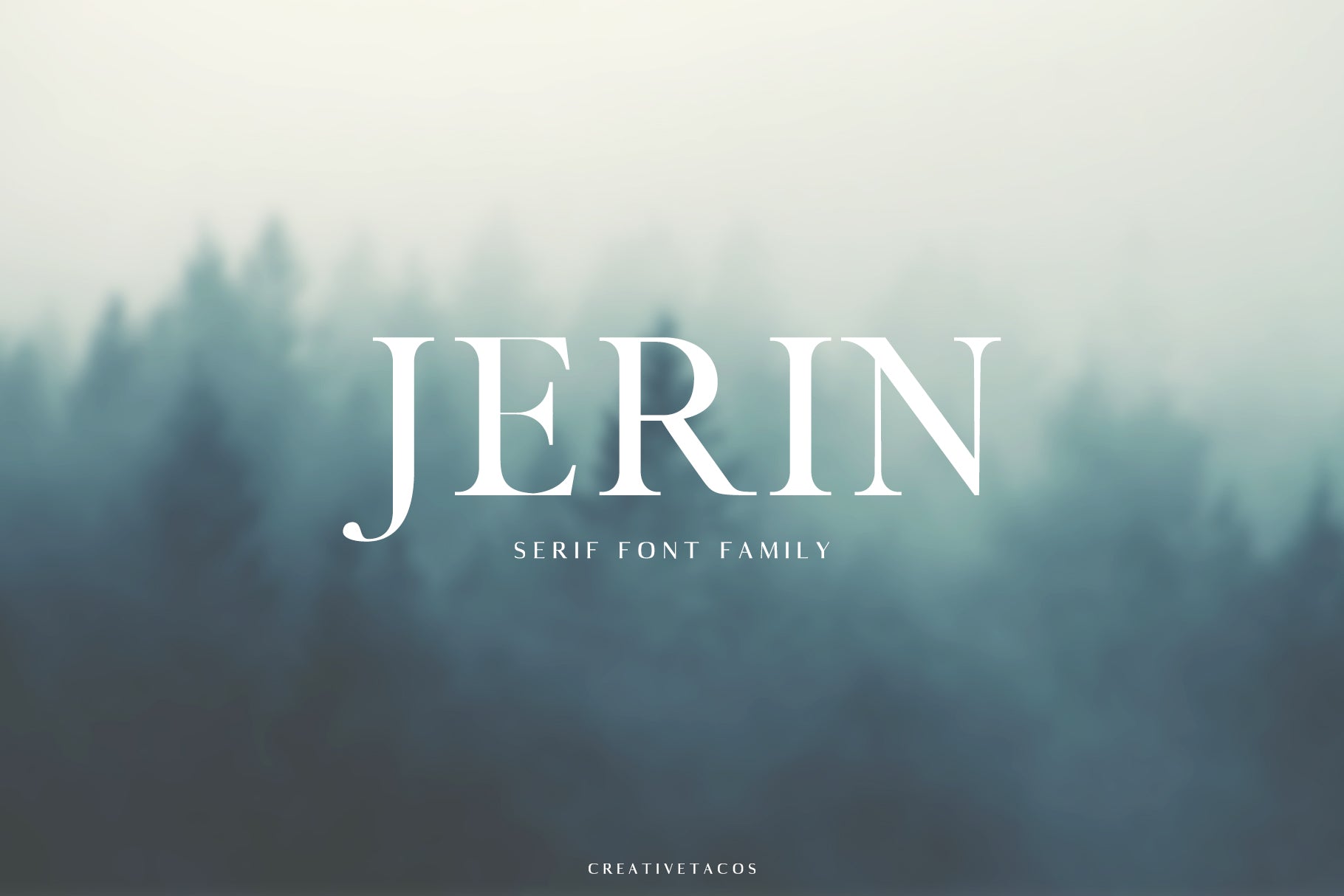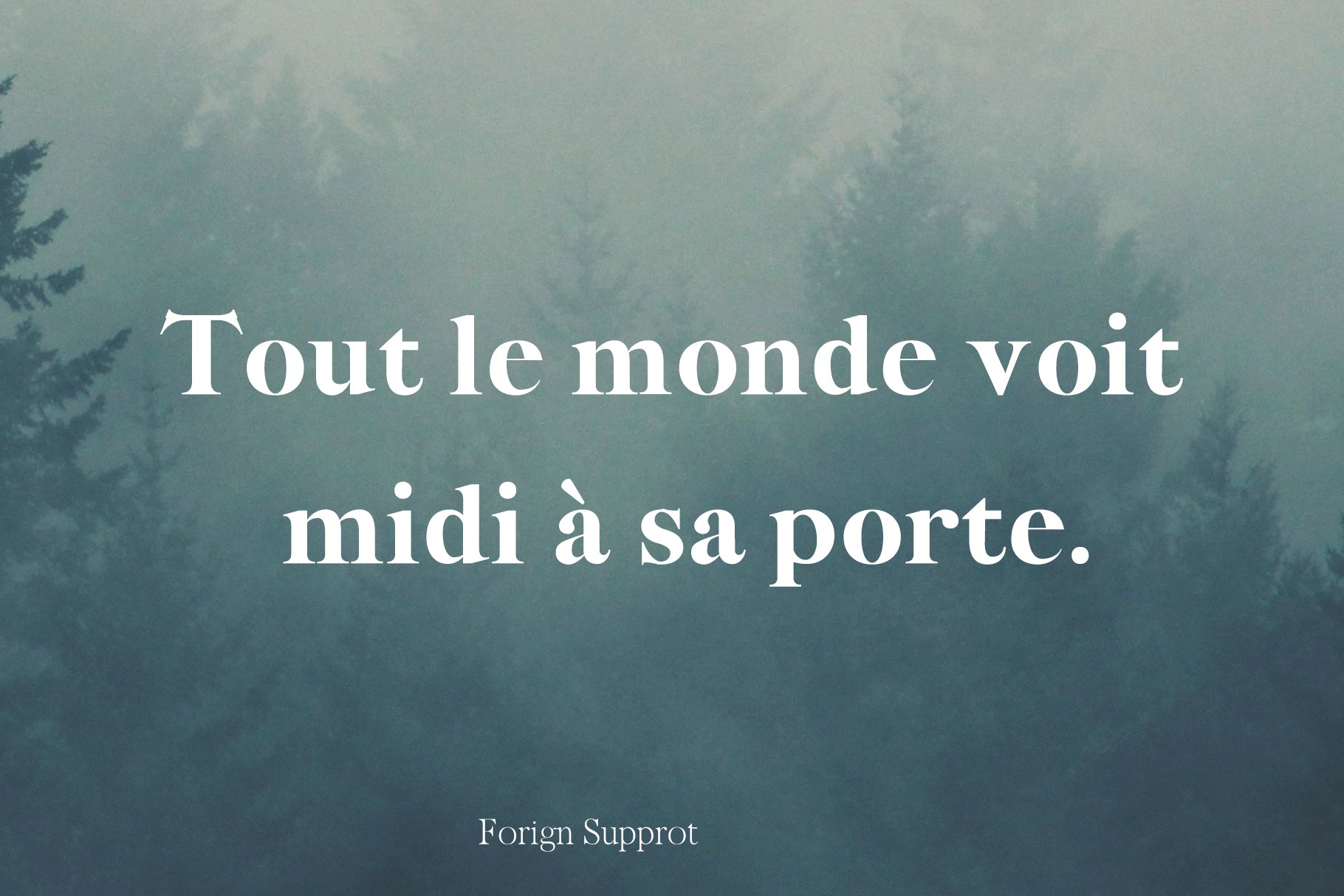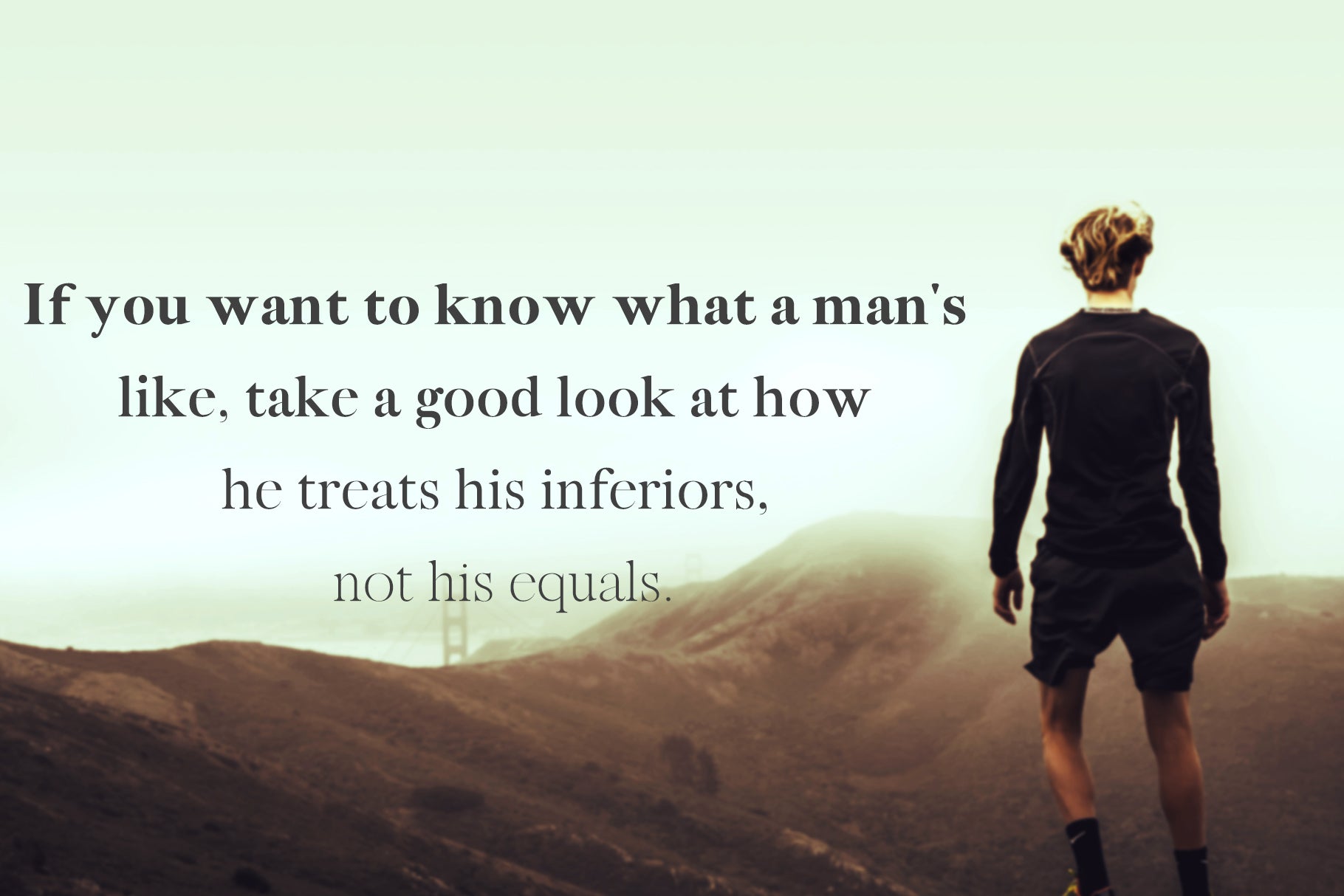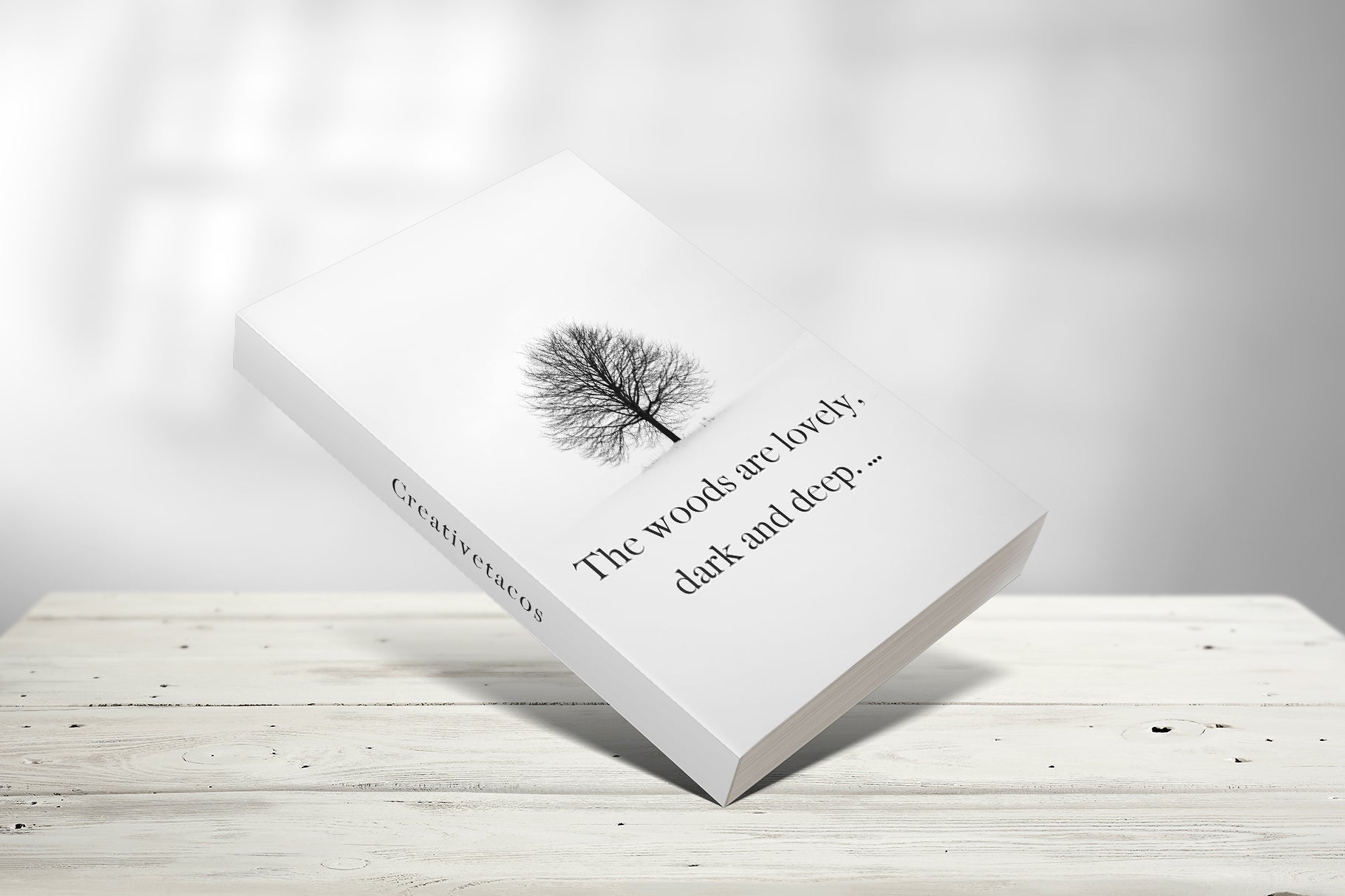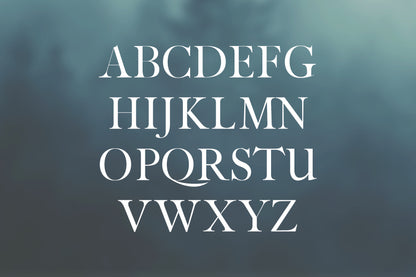
Jerin is a stylish and sophisticated, sleek lines serif font typeface that looks incredible in every context. It includes all basic glyphs with Non-English characters. This font will pair beautifully with the sans serif, script, display, signature or handwriting style.
Font Weight: Regular, Thin, Light, Round, Bold and Black
Jerin Font Features:
Uppercase Multilingual Letters
Lowercase Multilingual Letters
Numbers & Punctuation
Non English Characters (Latin Extended A)